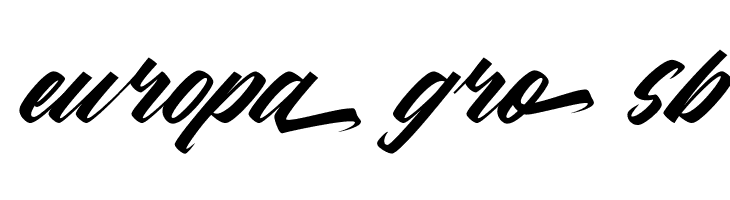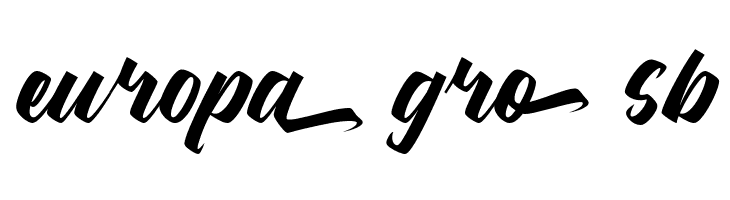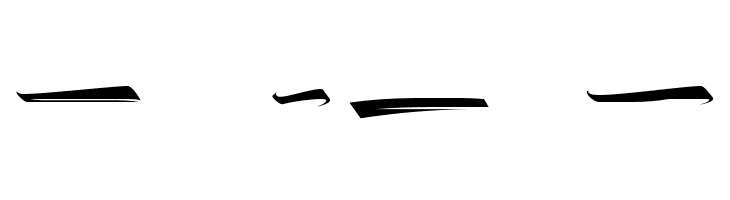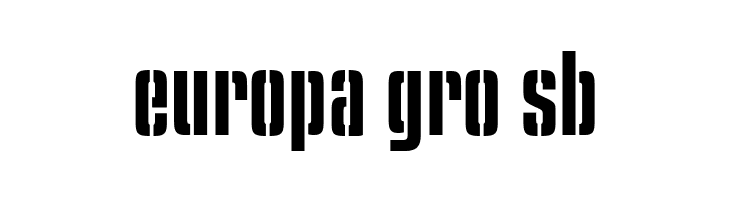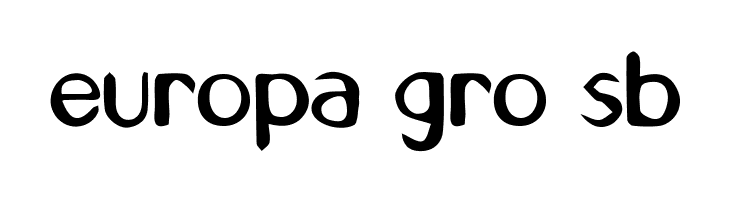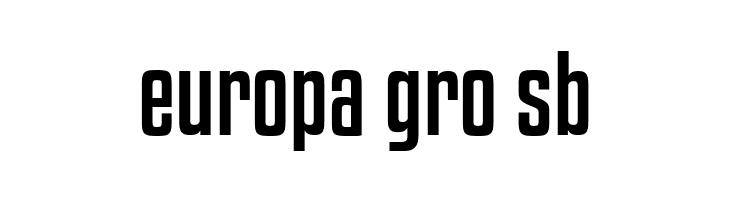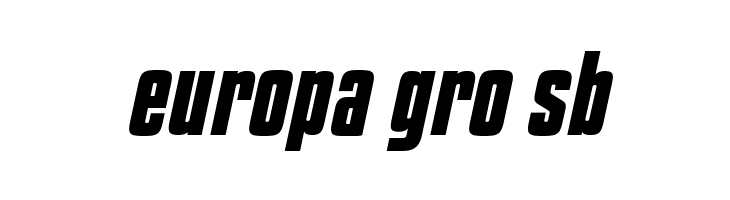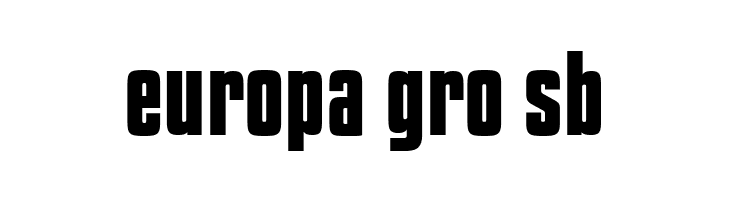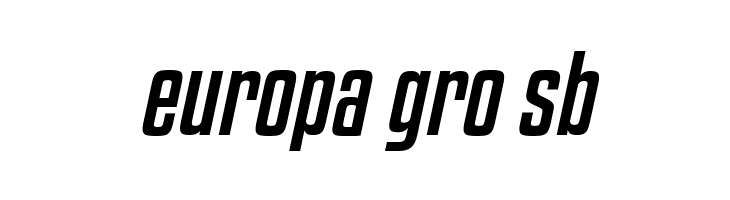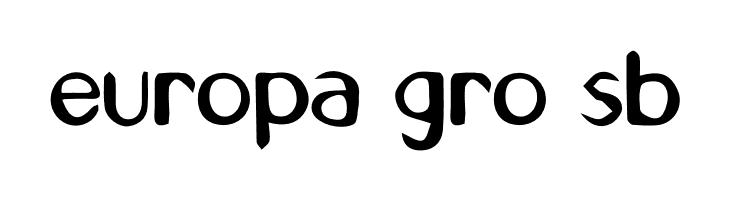
• Kenta
A bold, artistic font with a playful, hand-drawn style.
• Kenta
A playful, hand-drawn font with bold, irregular strokes and artistic flair.
• Kenthir
A bold, dynamic script font with fluid, connected strokes and a slight slant.
• Kenthir Italic
A bold, italic script font with dynamic, connected characters.
• Kenthir Swash
A dynamic script font with elegant swashes and fluid strokes.
• KenyanCoffeeRg-Bold
A bold, impactful typeface with strong, block-like characters.
• KenyanCoffeeRg-BoldItalic
A bold, italicized font with high contrast and tight spacing, perfect for impactful headlines.
• KenyanCoffeeRg-Italic
A bold, italic, and condensed font with a modern and dynamic style.
• KenyanCoffeeRg-Regular
A bold, narrow font with strong visual impact and consistent stroke width.
• KenyanCoffeeStencilSb-Regular
A bold, stencil-style font with high contrast and geometric shapes.